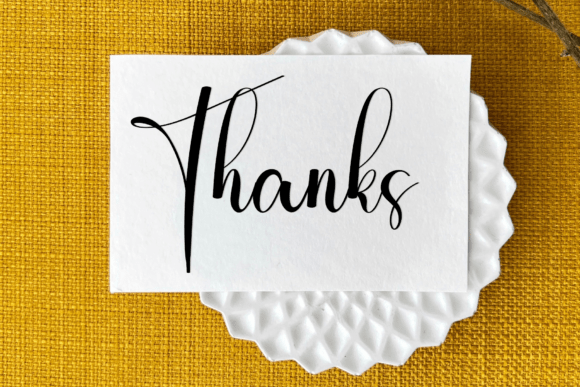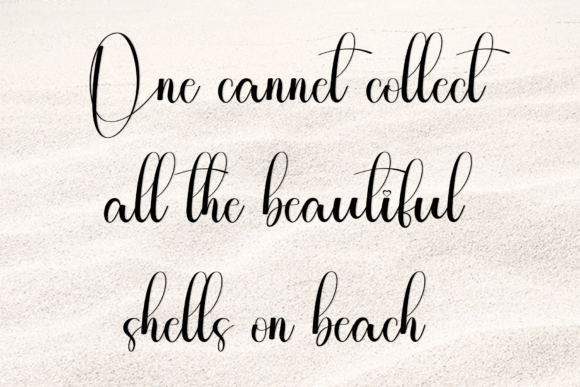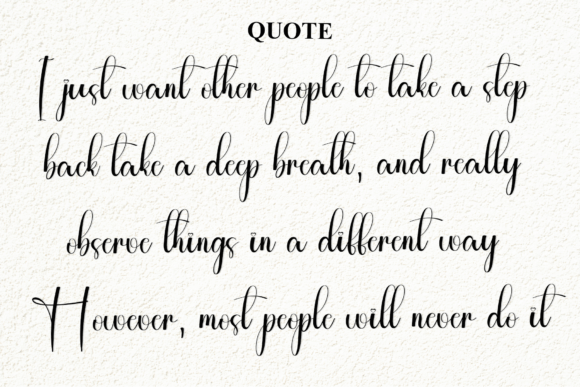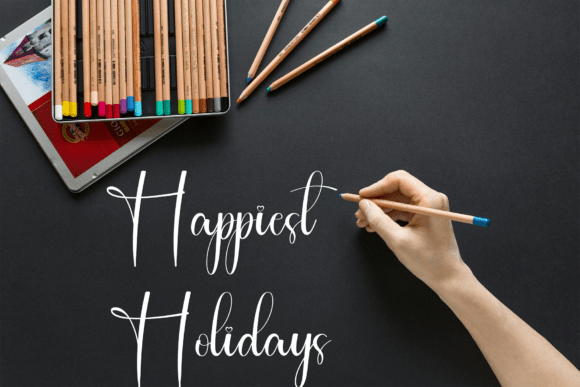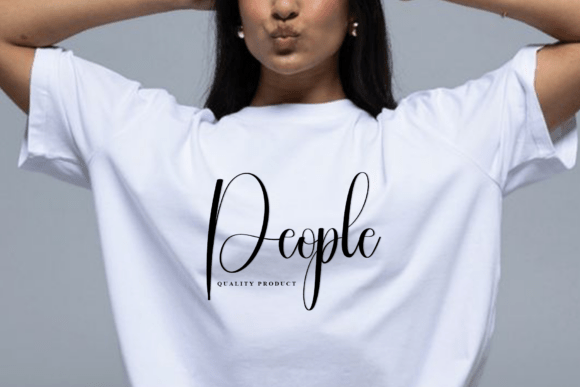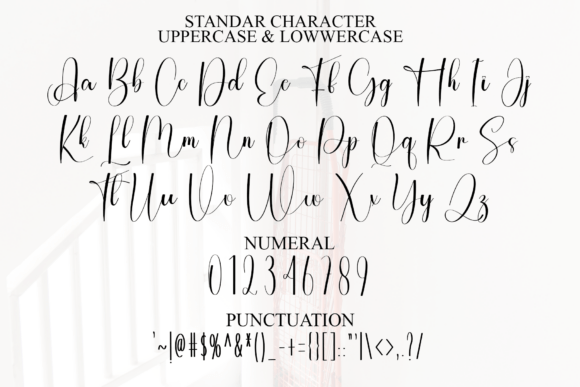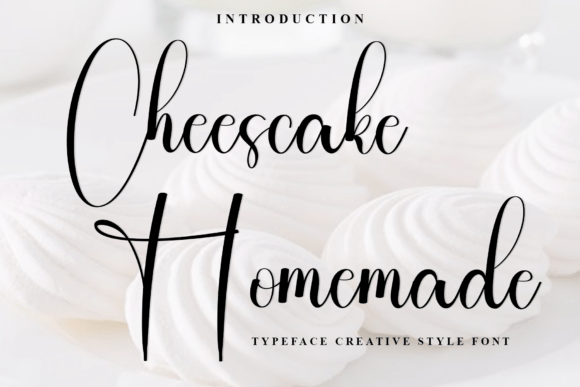
Introducing Cheescake Homemade Font: The Perfect Addition to Your Design Arsenal
Are you tired of using the same old fonts in your designs? Look no further! Cheescake Homemade Font is a game-changer for designers and crafters alike. This casual and creative font is designed to bring a touch of warmth and friendliness to your projects, making it perfect for personal and commercial use. In this article, we’ll dive into the features and benefits of Cheescake Homemade Font and explore how it can elevate your designs.
A Font that Exudes Warmth and Friendliness
Cheescake Homemade Font is a hand-drawn font that boasts round, playful strokes, creating a relaxed and approachable feel. Its charming aesthetic adds a fun and unique touch to any design, making it ideal for personal projects, invitations, social media graphics, and more. Whether you’re a designer, crafter, or DIY enthusiast, this font is sure to become a favorite in your collection.
Key Features of Cheescake Homemade Font
- Hand-Drawn Aesthetic: The font’s charming, hand-drawn aesthetic adds a personal touch to your designs, making them stand out from the crowd.
- Casual and Creative: Cheescake Homemade Font is perfect for designers and crafters who want to add a touch of warmth and friendliness to their projects.
- Multipurpose: Use Cheescake Homemade Font for personal projects, invitations, social media graphics, and more.
Benefits of Using Cheescake Homemade Font
So, why choose Cheescake Homemade Font for your designs? Here are just a few benefits:
- Adds a Personal Touch: The font’s hand-drawn aesthetic adds a personal touch to your designs, making them more relatable and engaging.
- Versatile: Cheescake Homemade Font is suitable for a wide range of design projects, from personal to commercial use.
- Unique: Cheescake Homemade Font is a one-of-a-kind font that will set your designs apart from the rest.
Design Ideas Using Cheescake Homemade Font
Now that you’re familiar with Cheescake Homemade Font, let’s explore some design ideas to get you started:
- Personal Invitations: Use Cheescake Homemade Font to create custom invitations for special occasions, such as birthdays, weddings, and baby showers.
- Social Media Graphics: Add a touch of warmth and friendliness to your social media graphics, such as quote graphics, promotions, and announcements.
- DIY Projects: Use Cheescake Homemade Font to add a personal touch to your DIY projects, such as handmade cards, gift tags, and crafts.
- Branding: Incorporate Cheescake Homemade Font into your branding materials, such as logos, business cards, and letterheads.
In conclusion, Cheescake Homemade Font is a versatile and charming font that can add a touch of warmth and friendliness to your designs. With its hand-drawn aesthetic, PUA Encoded glyphs, and compatibility with various application engines, this font is perfect for designers and crafters alike. Whether you’re working on personal or commercial projects, Cheescake Homemade Font is sure to become a valuable addition to your design arsenal.